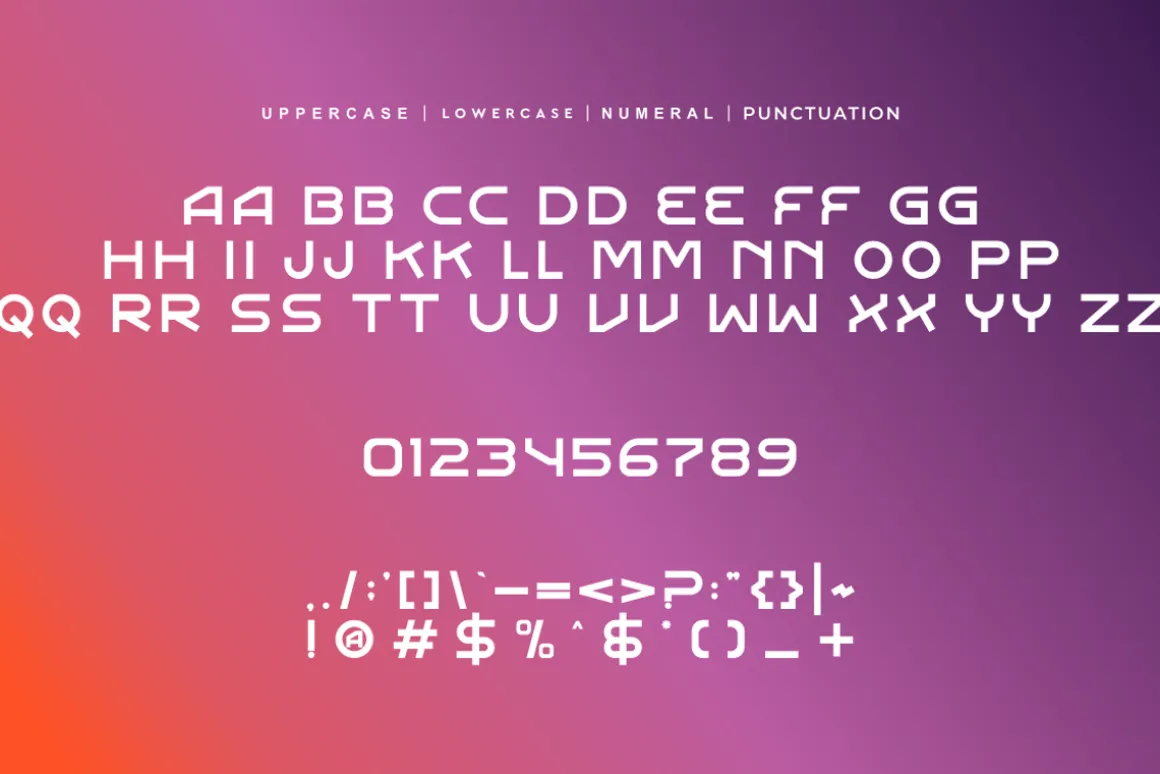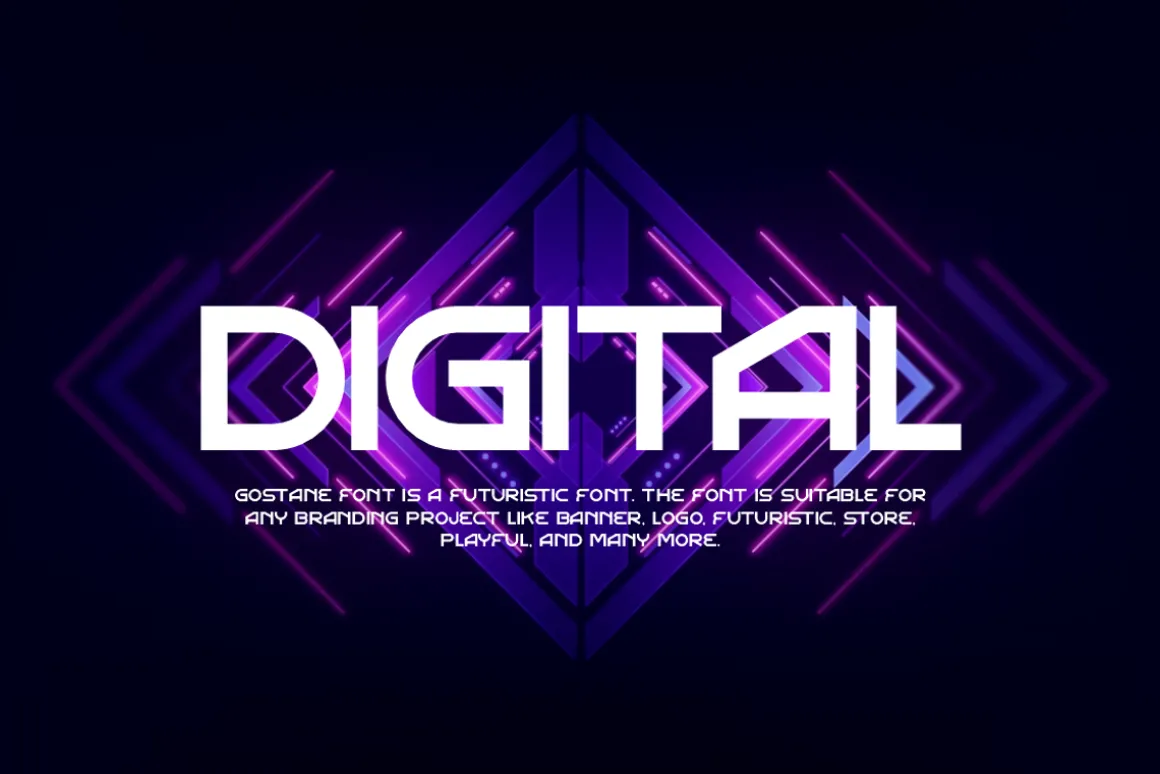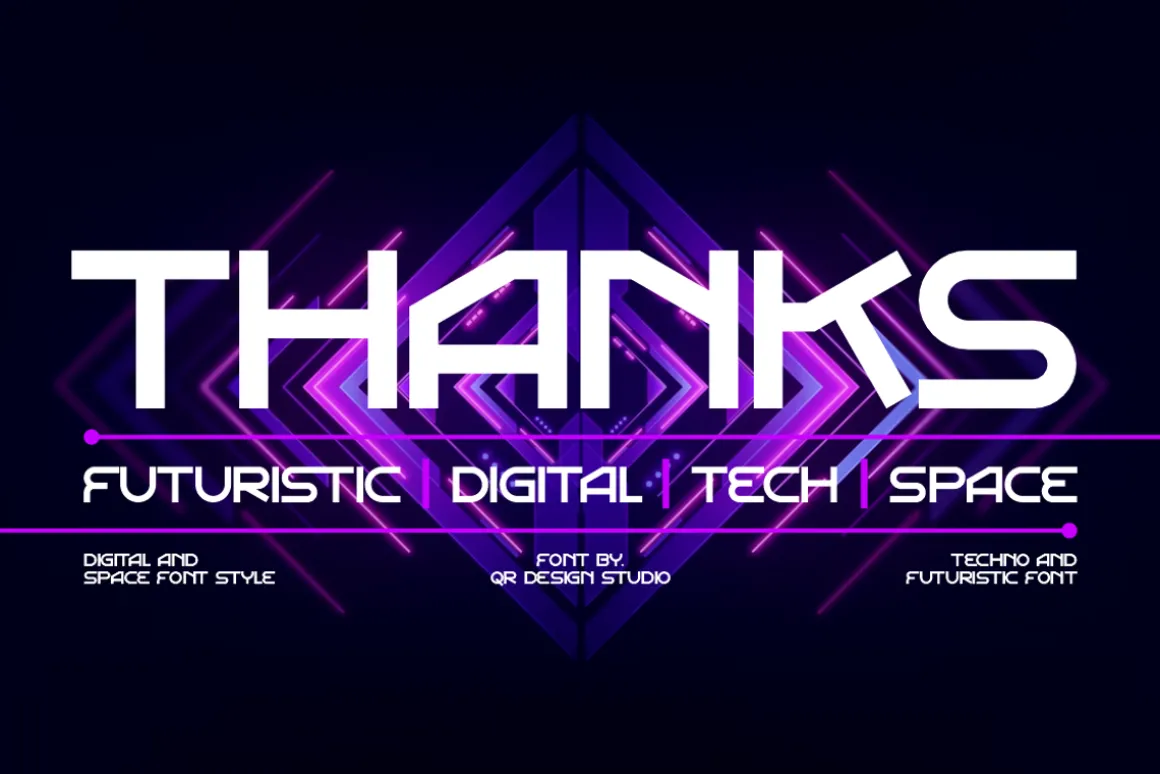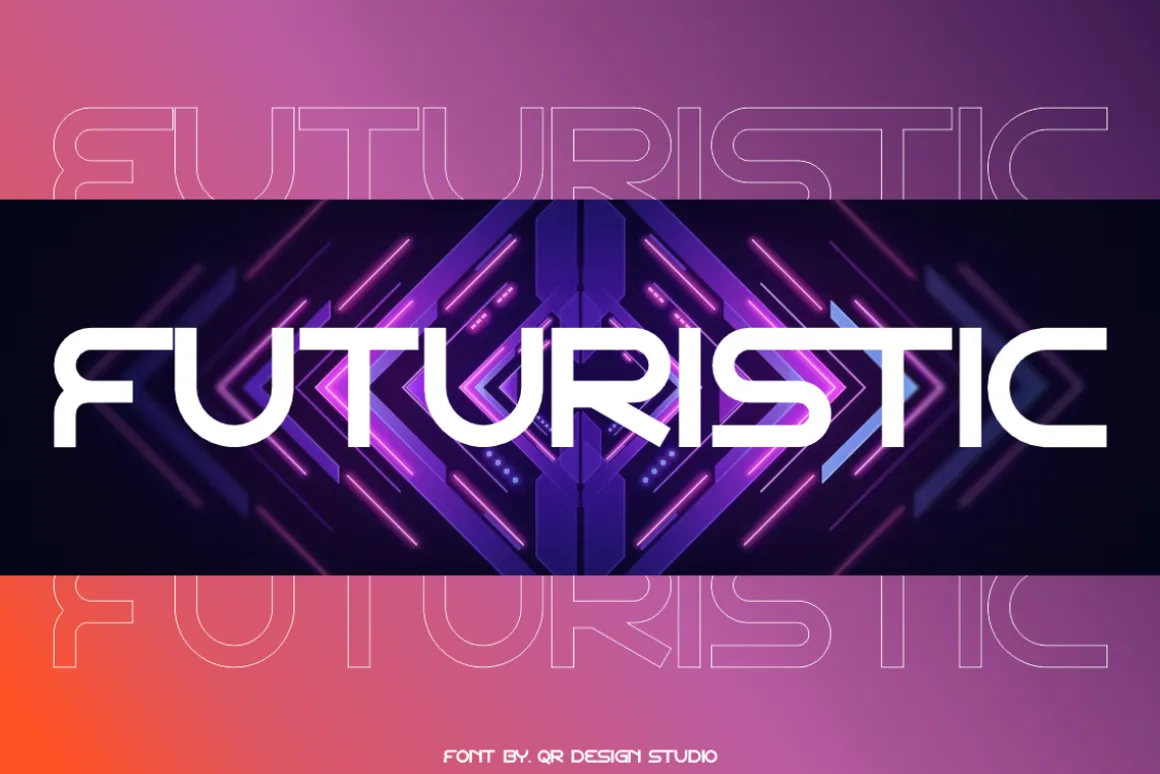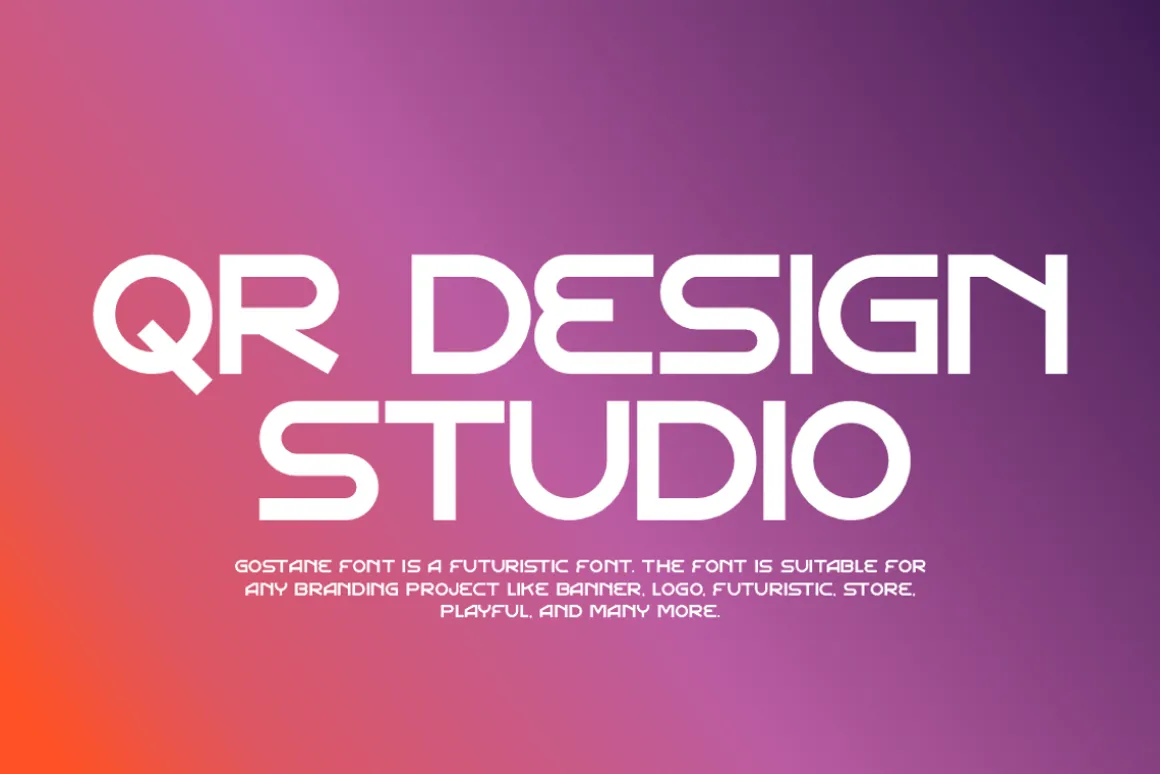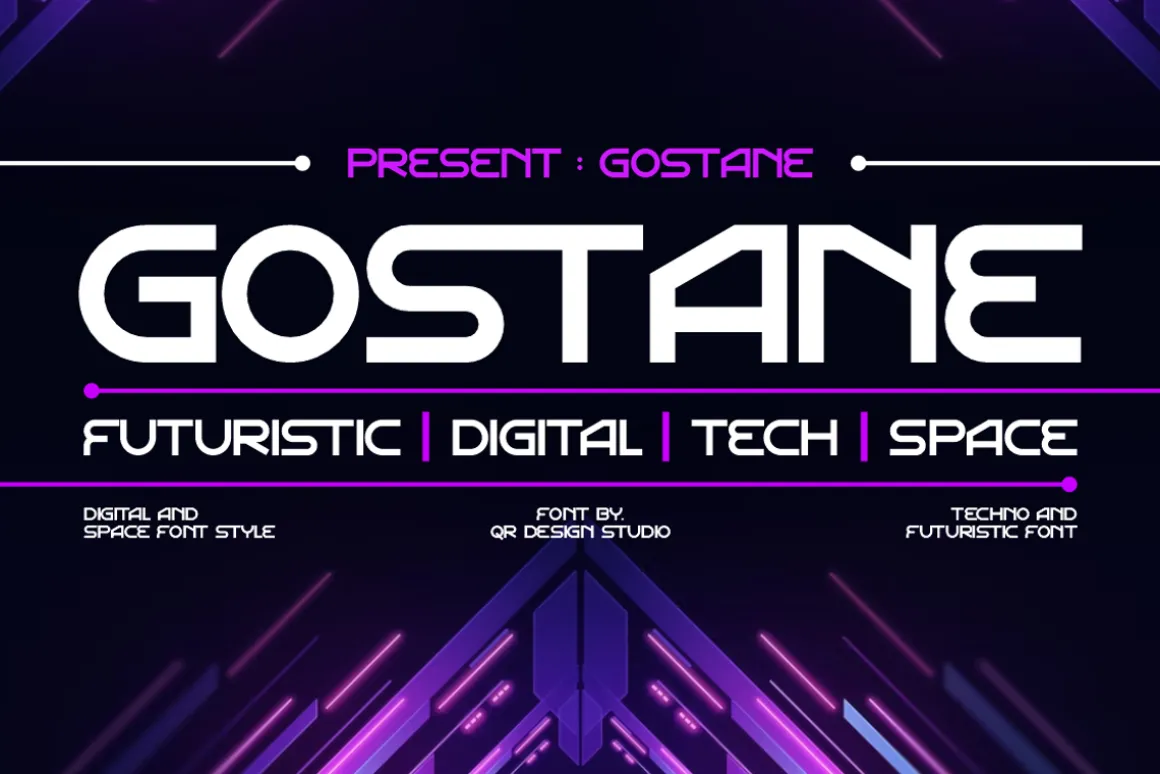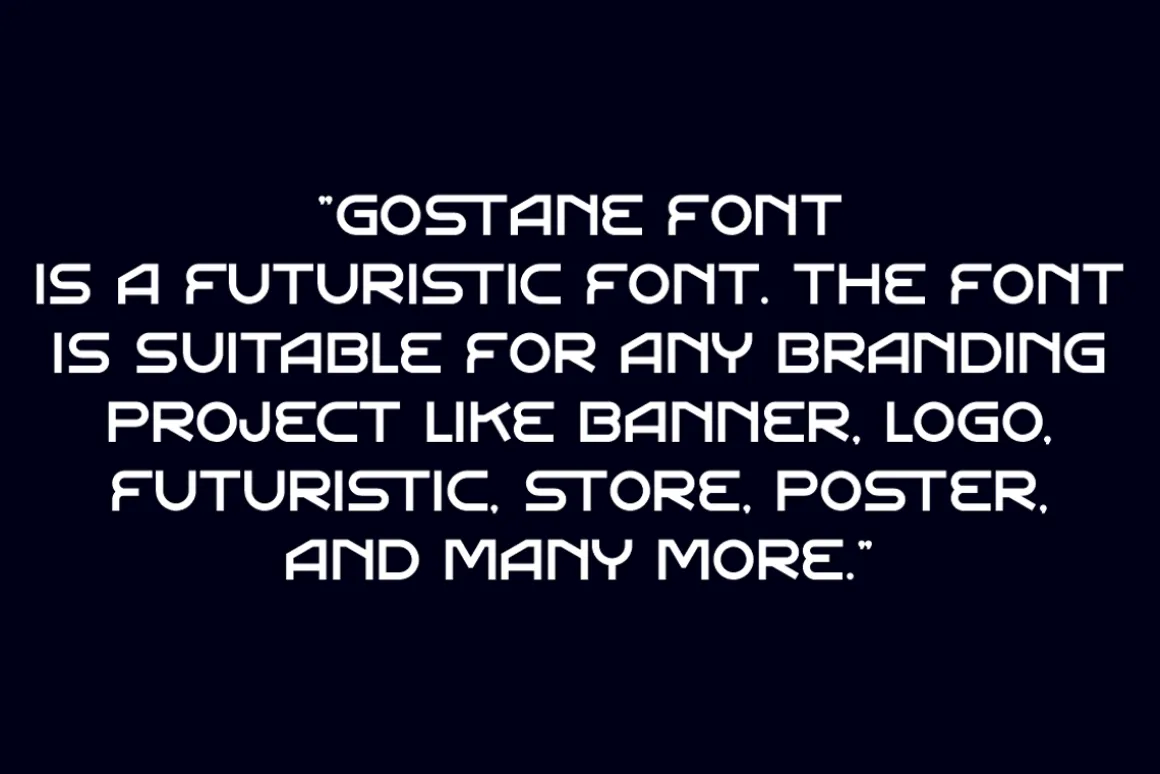
Gostane Font is a techno and authentic display font. The font is suitable for any branding project like poster, logo, technology, and many more. Outstanding in a wide range of contexts. Included + Gostane.OTF + Gostane.TTF + Gostane.WOFF